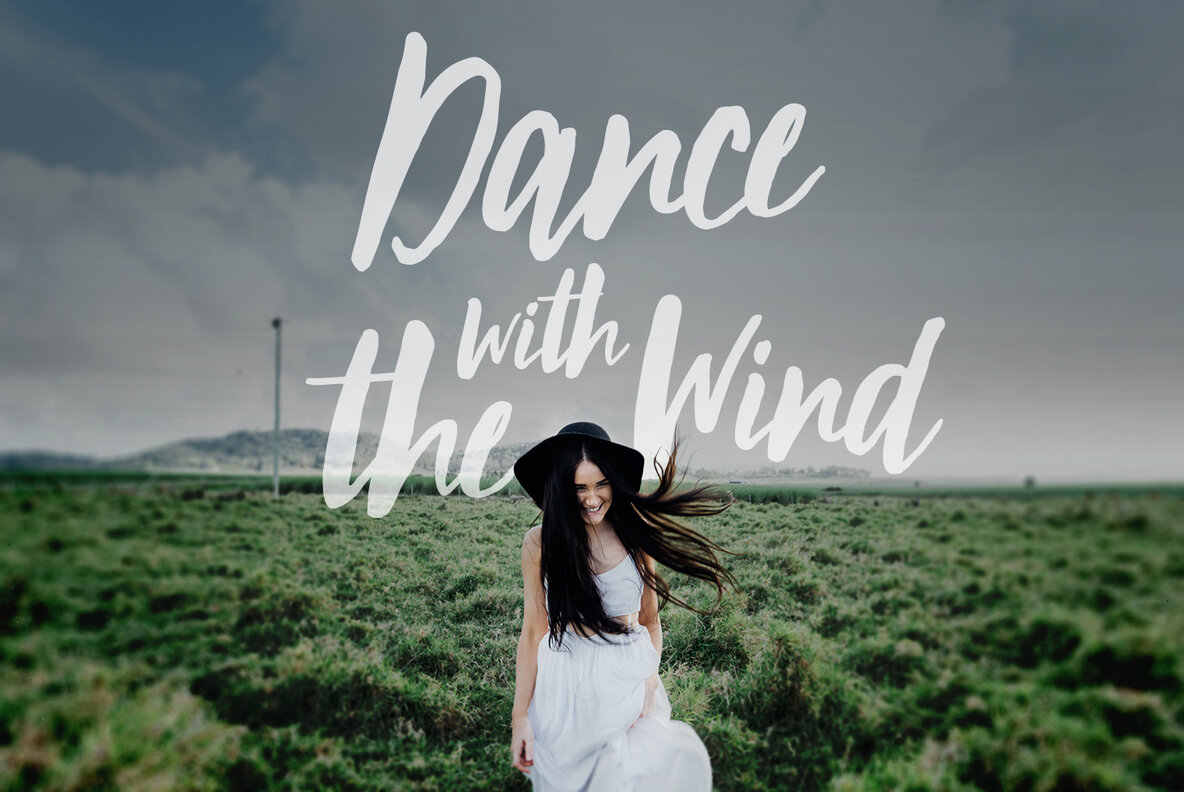
October Storm Font
October Storm is an edgy, modern brush font that is waiting to be used for your next project! This font is perfect for making logos, invites, quotes, photo overlays, and any other awesome projects you're working on.
This font contains standard characters, lowercase, uppercase, numbers, punctuation, swashes, ligatures and international characters.